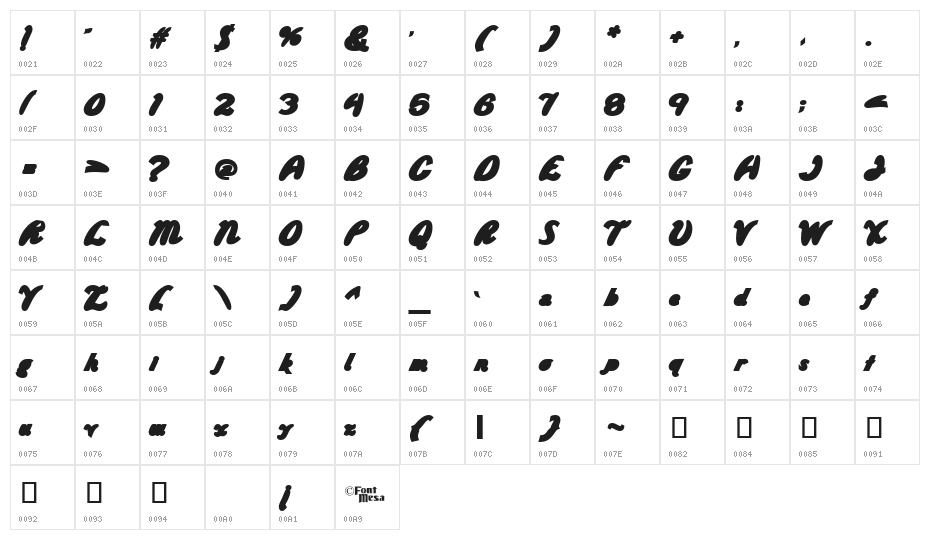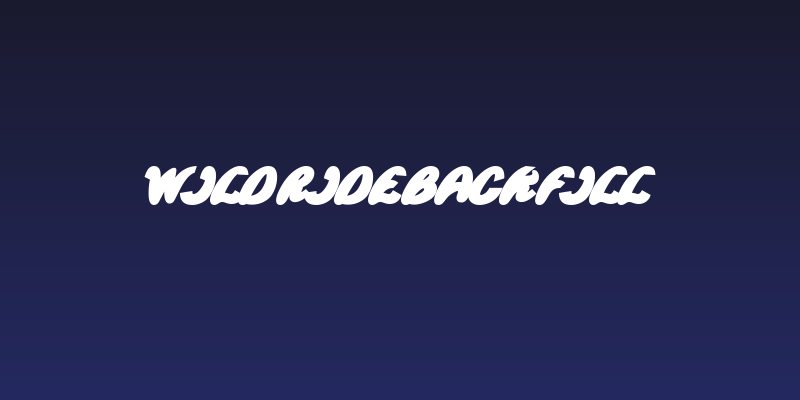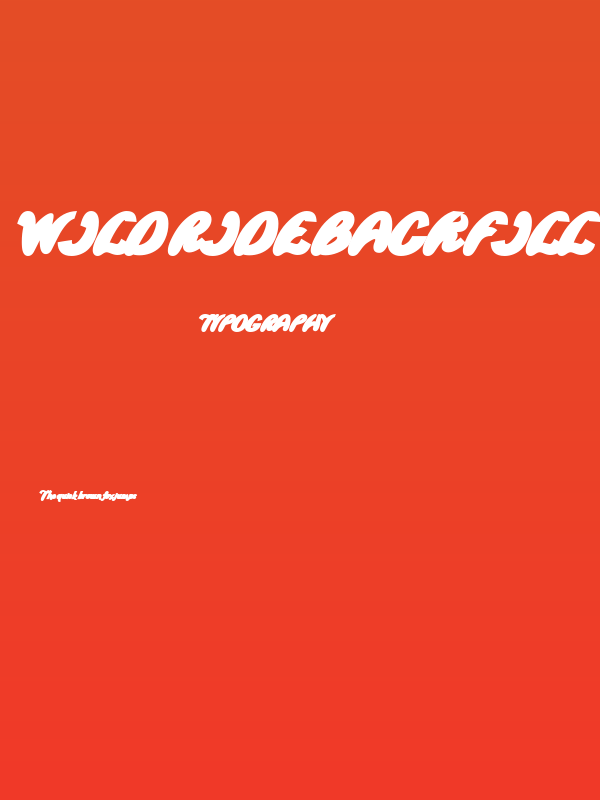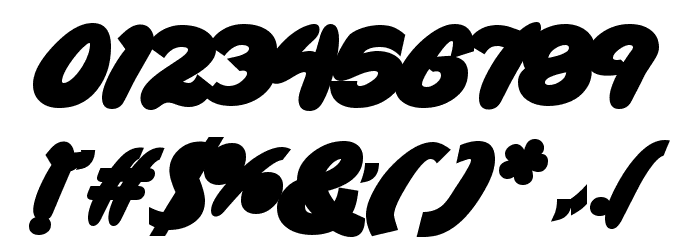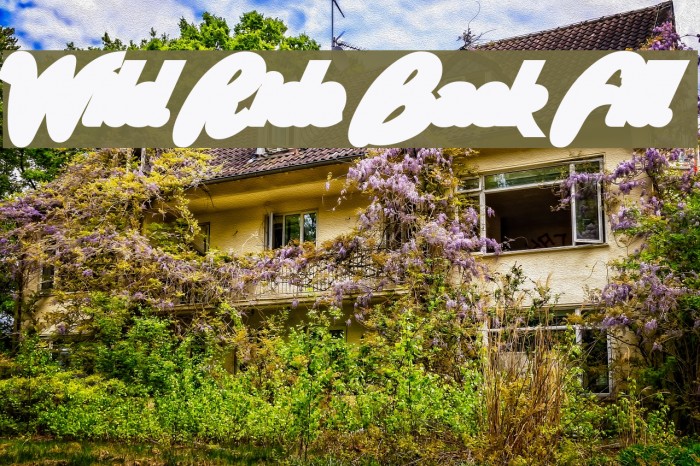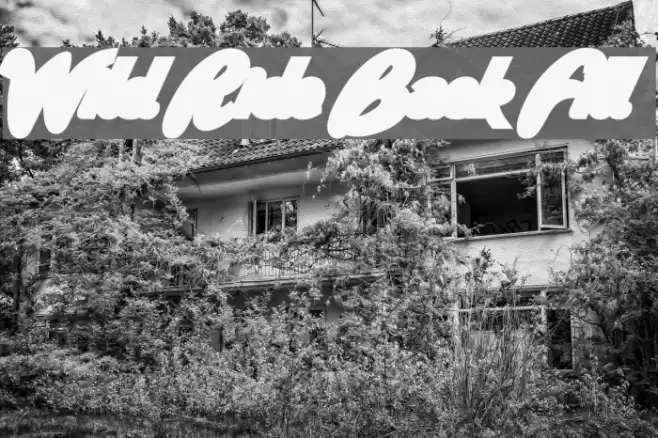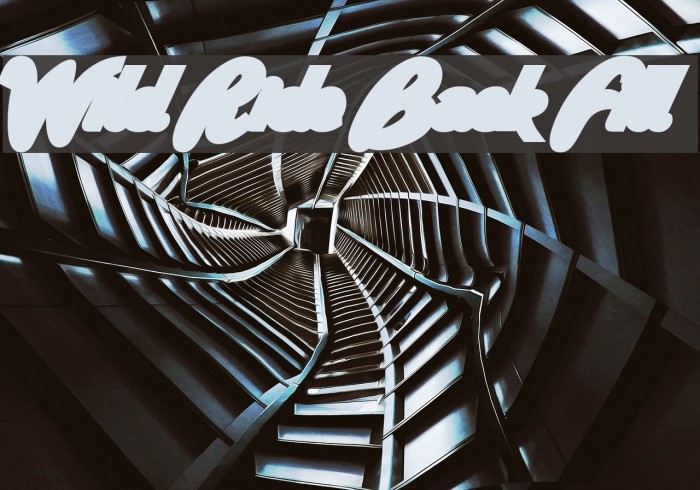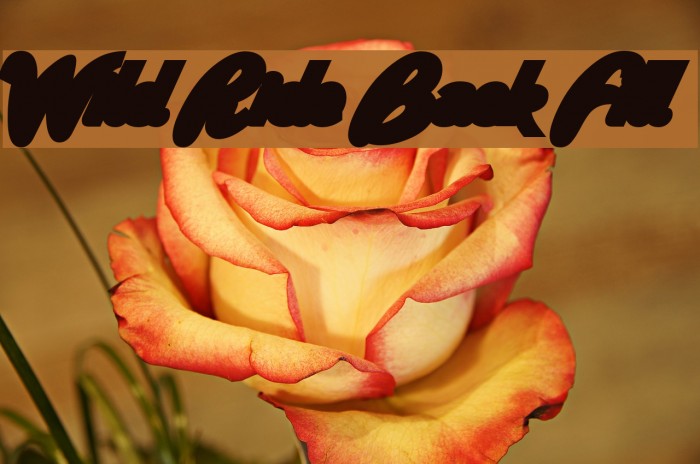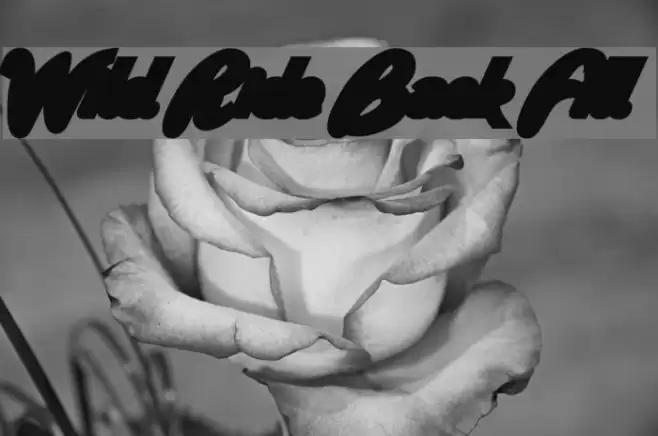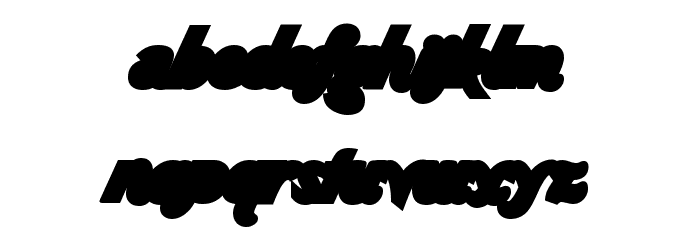
Wild Ride Back Fill Font
Wild Ride Back Fill Description
This font features a bold and dynamic script style with a strong presence. The characters are interconnected, creating a fluid and continuous flow, reminiscent of handwriting with a modern twist. The strokes are thick and consistent, providing a sense of strength and confidence. The uppercase letters maintain a uniform height, while the lowercase letters exhibit a playful bounce, adding to the font's lively character. The numbers and special characters are equally bold, ensuring they stand out in any design. This font is perfect for making a statement, with its eye-catching and energetic appearance.
| Use Case | Logos, Headlines, Posters |
| Proposed Projects | Ideal for branding, logos, headlines, posters, and any design needing a bold, energetic script. |